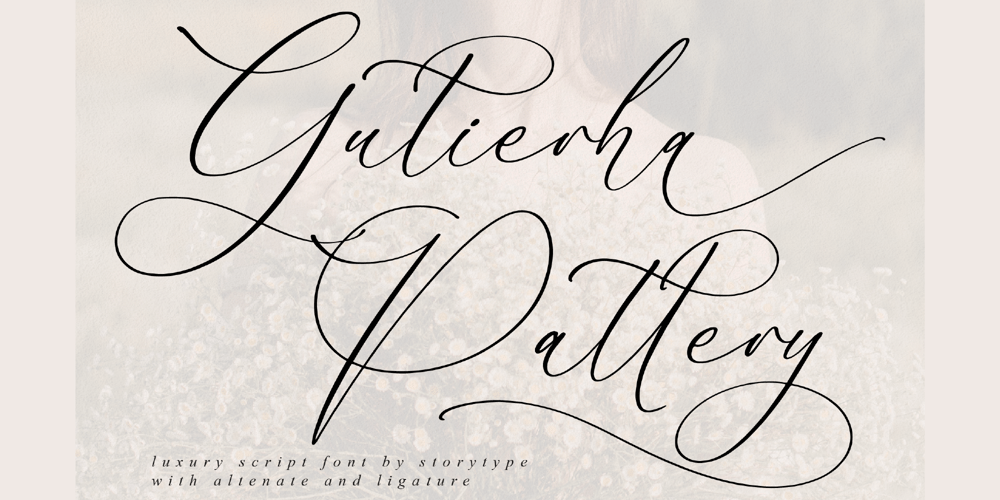
Gutierha Pattery
Gutierha Pattery font
Gutierha Pattery Font Family was designed by Heru Utama Putra and published by Letterena Studios. Gutierha Pattery contains 2 styles and family package options. Gutierha Pattery is a luxurious script font with a unique style and modern look. This typeface is perfect for an elegant & luxury logo, book or movie title design, fashion brand, magazine, clothes, lettering, quotes, and so much more.